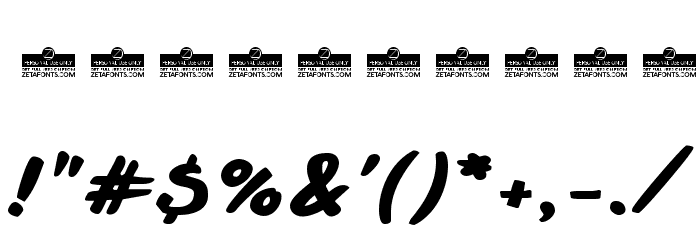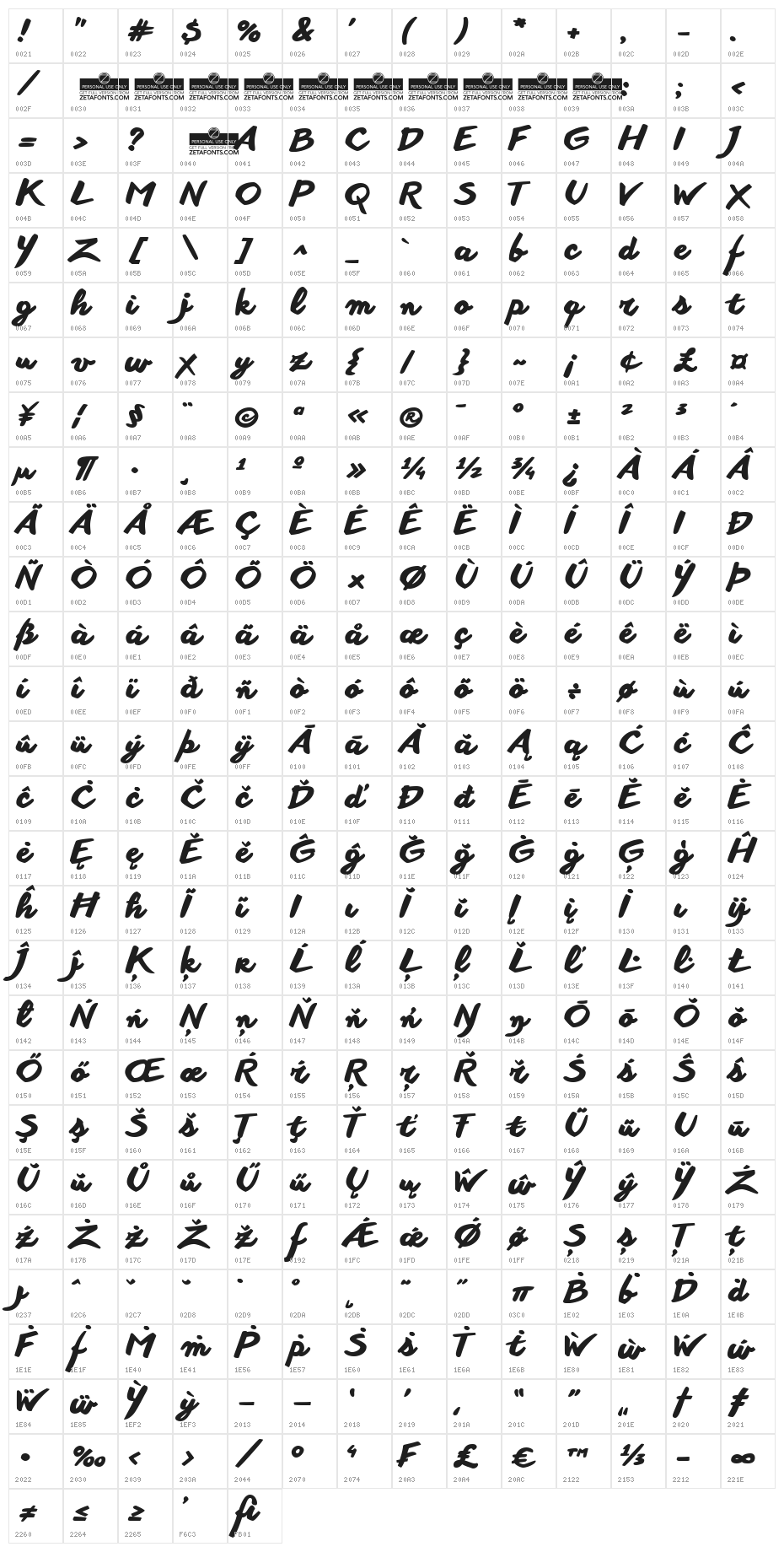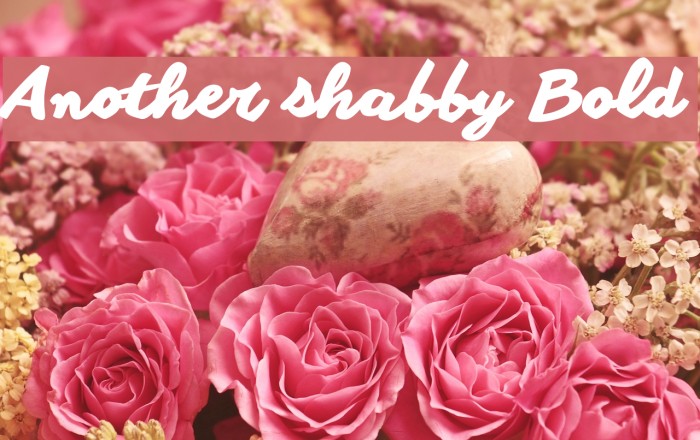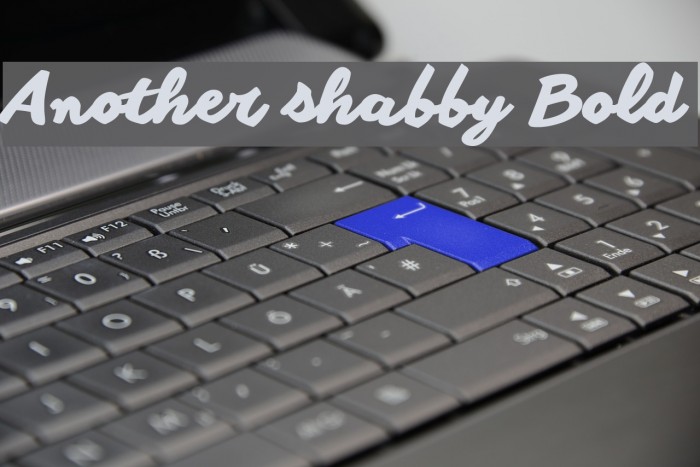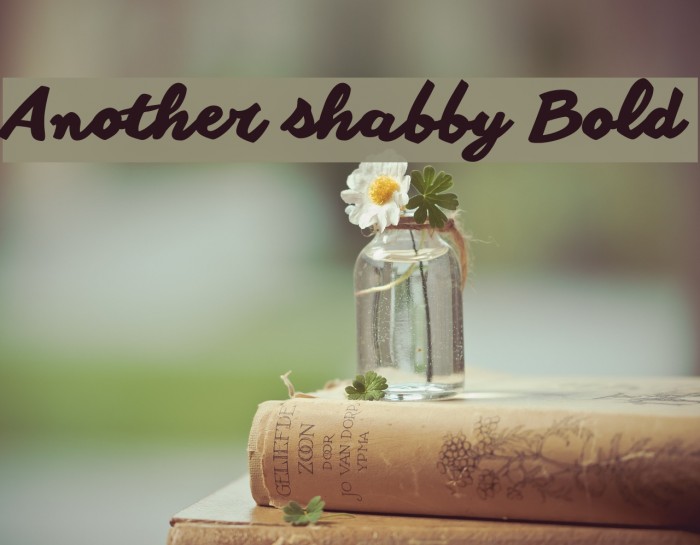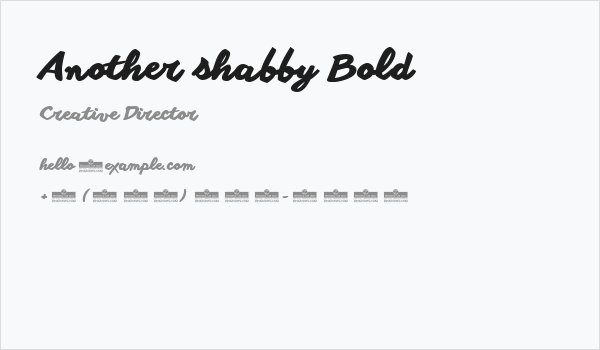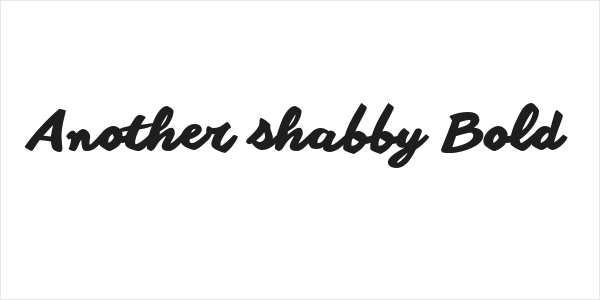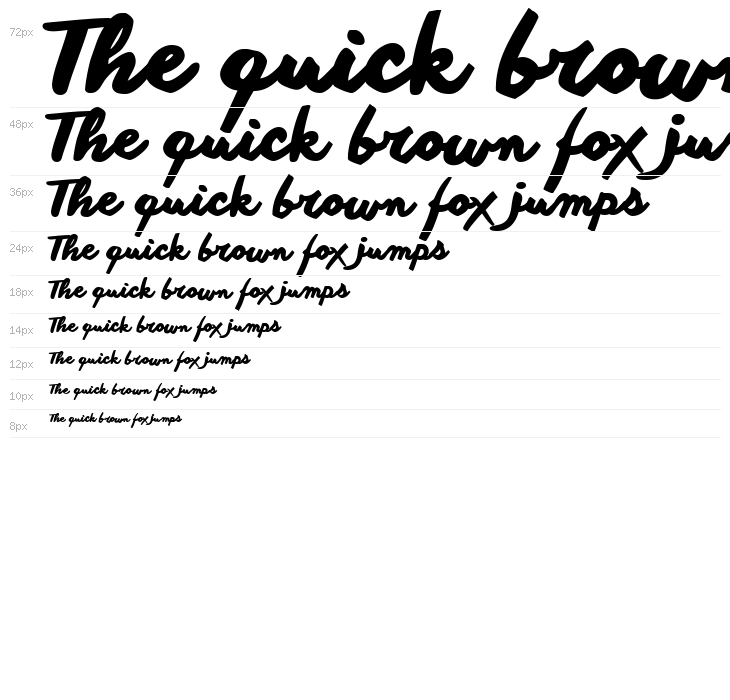
Another shabby Bold Font
Another shabby Bold Description
This font exudes a bold and dynamic presence with its thick, brush-like strokes that convey a sense of energy and movement. The uppercase letters are slightly slanted, adding a casual and informal touch, while the lowercase characters maintain a consistent flow, enhancing readability. The font's playful nature is further emphasized by its rounded edges and smooth curves, making it ideal for projects that require a lively and engaging aesthetic. Special characters are well-integrated, maintaining the overall style and ensuring versatility across various applications.
| Proposed Projects | Ideal for branding, posters, social media graphics, and any project needing a lively, energetic typeface. |